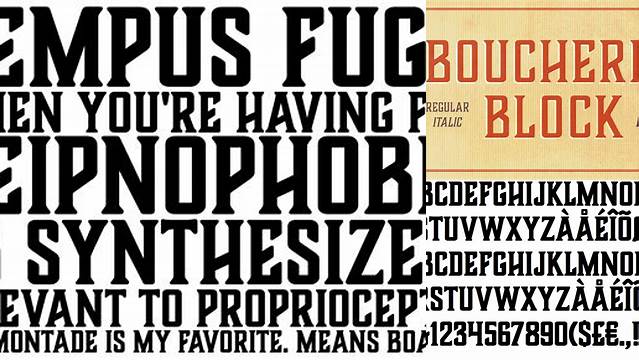
Hey there, design enthusiasts! Are you on the hunt for a font that screams boldness, elegance, and a touch of vintage charm? Well, look no further, because we're diving deep into the world of the Boucherie Block font, and the best part? You can snag it completely free! Get ready to revamp your projects with this eye-catching typeface. This article will give you the complete guide, from what makes Boucherie Block so special, to where you can grab your own copy for free, and some cool ways to use it. Let's get started!
What Makes Boucherie Block Font So Special? Exploring Its Unique Characteristics
Boucherie Block font isn't just another font; it's a statement. It's the kind of typeface that grabs your attention and holds it. What's really cool about it is its unique blend of retro and modern aesthetics. This font pays homage to the classic block letter styles, but it's got a modern twist that makes it incredibly versatile. You'll find it perfect for a wide array of design projects, from branding and logos to posters and website headers. Its bold, clear lines ensure readability even at larger sizes, while the subtle details add a layer of sophistication. This makes Boucherie Block an awesome choice if you want to create something with a strong visual impact. The font's design elements are carefully considered. Each letter is crafted to balance aesthetic appeal with practicality. Whether you're designing for print or digital media, Boucherie Block holds its own, ensuring your message is clear and memorable. With Boucherie Block, you're not just picking a font; you're choosing a design tool that will help you tell your story. So, if you're looking to add a touch of personality and visual flair to your projects, Boucherie Block is definitely worth exploring. Its distinct style sets it apart from the crowd, making it ideal for those who want their design to stand out. Boucherie Block is more than just a font; it's a way to communicate your ideas with style and impact. Its unique features make it stand out and perfect for anyone looking to make a statement with their design work. Boucherie Block font is a versatile typeface that makes a visual impact, and that's why it's loved by designers everywhere. It's an awesome addition to your font library. Boucherie Block offers a great balance between boldness and sophistication. Designers can use it for various projects, from logos and branding materials to posters and website headlines. Its unique qualities ensure your work will look distinct. Its distinct visual character makes Boucherie Block an awesome choice for any project that needs to be both eye-catching and readable. The Boucherie Block font has a strong and noticeable appearance. It has an impact on the viewer because of its bold design. This font is awesome for anyone looking for a typeface that is both eye-catching and easy to read. The Boucherie Block font is an awesome choice for designers. It's great for anyone who wants to create a bold, eye-catching design. This font helps designers create visually appealing and practical designs. Boucherie Block is not just a font; it's a versatile tool. Its unique features allow you to communicate your message. It helps you make your designs stand out. This font is perfect for anyone looking to add a unique touch to their work. The Boucherie Block font stands out with its bold design and unique character. It makes your designs visually appealing and memorable. If you are looking for a font that is both striking and easy to read, then Boucherie Block is your ideal choice. It's great for anyone looking to make a statement. The font adds a touch of elegance, perfect for projects that need both boldness and sophistication. Whether you're a seasoned designer or just starting, Boucherie Block gives you a strong foundation. It helps create designs that are both visually appealing and impactful.
Creative Ways to Use the Boucherie Block Font: From Logos to Posters
Okay, now for the fun part: how can you use the Boucherie Block font to make your designs pop? This versatile font is your new best friend, and the possibilities are vast. First off, logos! The bold and clean lines of Boucherie Block make it awesome for creating memorable logos. Imagine your company name or brand initials in this font; it's instantly eye-catching and professional. You can also use it for headlines and titles in your marketing materials, like website banners or social media graphics. Its readability ensures your message gets across loud and clear. For posters, Boucherie Block is a superstar. The font's strong presence helps grab the viewer's attention, making it perfect for event posters, promotional materials, and even artistic displays. You can play with different colors and sizes to create visually stunning designs. Think about using it in your website headers to add a touch of style and elegance. It's a great way to make your website look more modern and appealing. Plus, with its bold design, it's easy to make your headers stand out. You can also pair the Boucherie Block font with other fonts to achieve different styles and effects. For example, use it for the main headlines and pair it with a more delicate font for body text. This combination can bring a really appealing balance to your designs. Experiment with different layouts and color schemes to see how the Boucherie Block font works best. There are tons of creative ways to leverage this awesome font and add a touch of personality to your projects. Whether you're creating a logo, designing a poster, or updating your website, Boucherie Block can help you make a statement. So, be creative and let your imagination run wild. The Boucherie Block font is your tool for designing eye-catching and memorable projects.
Tips for Combining Boucherie Block Font with Other Fonts
So, you've got the Boucherie Block font, and you're ready to take your designs to the next level. One of the best ways to elevate your designs is by creatively combining it with other fonts. Think of it like creating the perfect outfit – you want different textures and styles to create a balanced look. The first rule is contrast. Since Boucherie Block is a bold, blocky font, it pairs exceptionally well with more delicate or handwritten fonts. This contrast adds visual interest and ensures that your design is easy to read. Imagine using Boucherie Block for your headlines and a thin, elegant sans-serif or script font for your body text. It creates a striking yet harmonious look. When choosing fonts, consider the mood you want to create. If you're aiming for a modern and clean look, you could combine Boucherie Block with a simple sans-serif font. For a more vintage feel, try pairing it with a serif font that has some character. Think about the purpose of your design. If you're designing a poster, you might want to use Boucherie Block for the main title, combined with a complementary font for the supporting details. Remember that the best combinations are those that enhance your message and make it visually appealing. Make sure to maintain consistency in your design. Using the same font families throughout your project will give it a more unified feel. You can also experiment with different font weights and sizes to create visual hierarchy. In terms of usage, you should use Boucherie Block for headings, and choose a different font for the body of the text. Try to make the body of the text smaller than the Boucherie Block text to make it visually appealing. This balance is key. Play around with different combinations, experiment with different styles and fonts, and most importantly, have fun! Mixing fonts is a great way to make your designs more interesting, but it requires careful consideration. When you get it right, you can create some truly awesome designs that stand out. So, experiment and see what works best for you. Let your creativity shine, and you'll be amazed at the results!
Final Thoughts: Unleash Your Creativity with Boucherie Block
So, there you have it, design friends! The Boucherie Block font is your gateway to creating visually stunning and impactful designs. With its bold aesthetic and versatile nature, this font is perfect for various projects. Now that you know where to find it and how to use it, you're well on your way to creating some awesome designs. Remember to always prioritize legal and safe font sources. This will help you stay on the right side of the law. Experiment with different combinations, layouts, and styles. This will allow you to find what best suits your creative vision. Always remember the core principles of good design: clarity, readability, and a strong visual message. By understanding these principles and using the Boucherie Block font effectively, your work will undoubtedly grab attention and leave a lasting impression. So, go ahead, download the font, and start creating! Unleash your creativity and let the Boucherie Block font be the cornerstone of your next amazing project. Happy designing, and I can't wait to see what you create!